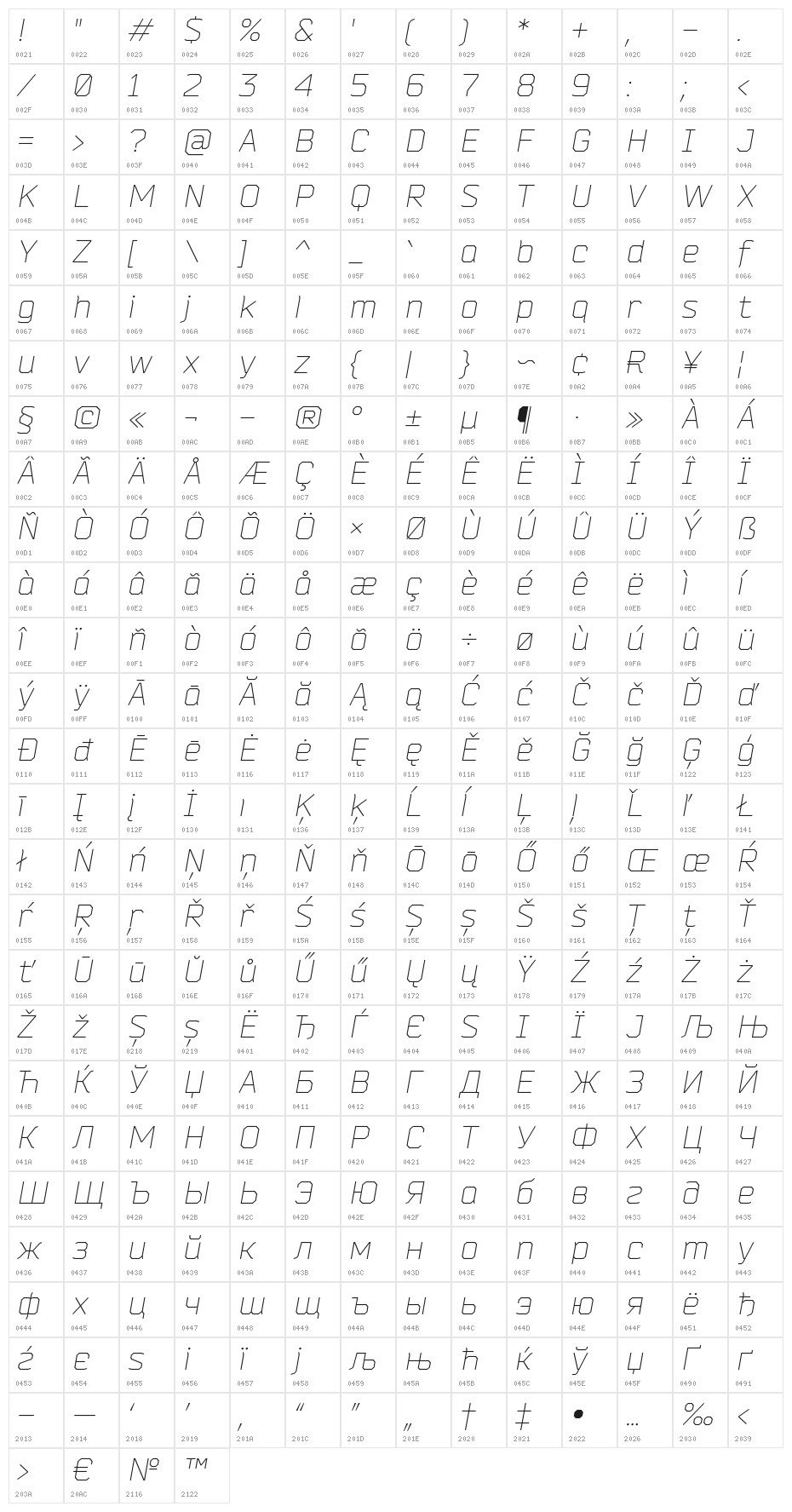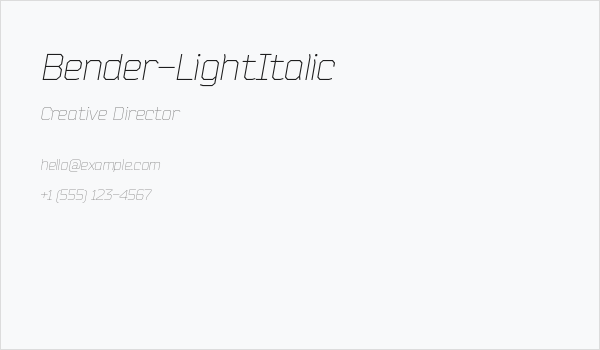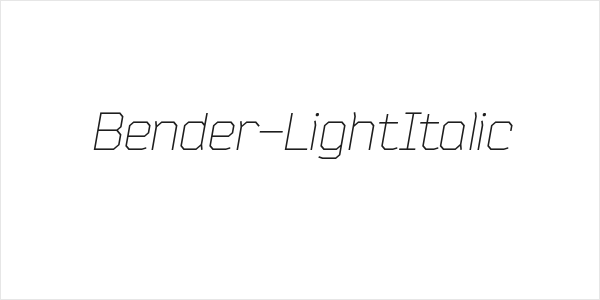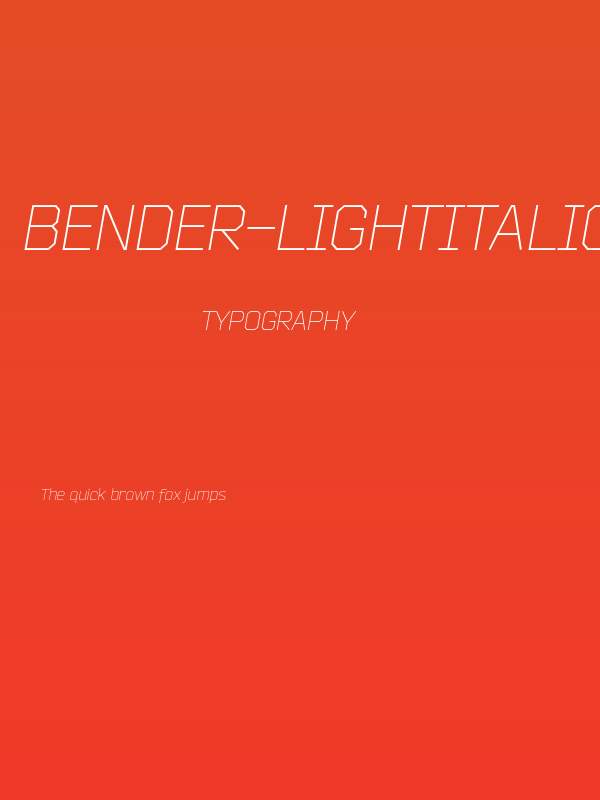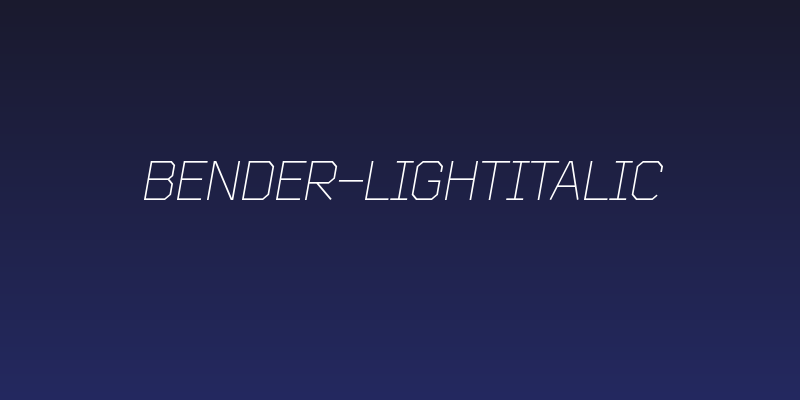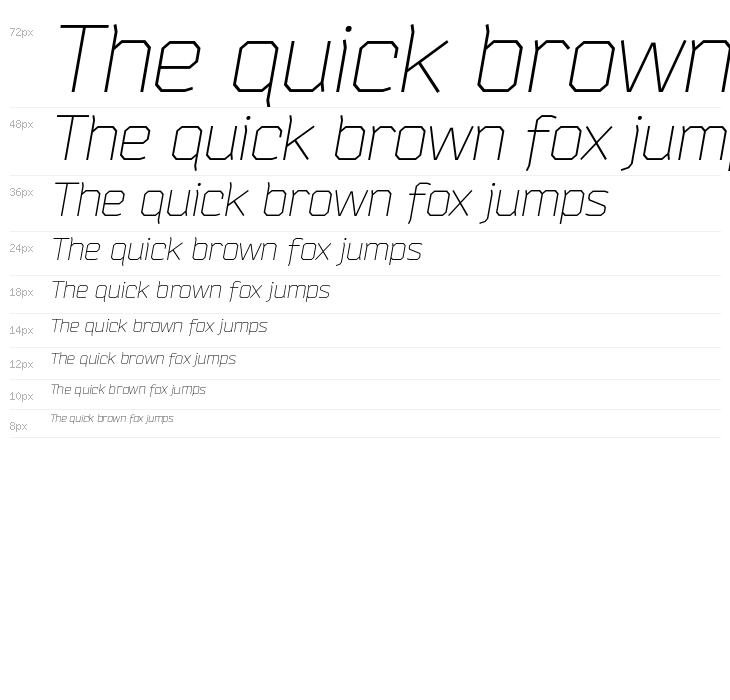
Bender-LightItalic Font
Bender-LightItalic Description
This font features a sleek, geometric design with a modern twist. The characters are constructed with clean, angular lines that give a futuristic and technical feel. The italic style adds a dynamic and forward-leaning appearance, enhancing its contemporary aesthetic. Each letter maintains a consistent stroke width, contributing to a uniform and balanced look. The numerals and special characters follow the same design principles, ensuring cohesion across all elements. This font is ideal for projects that require a modern and innovative touch, such as technology branding or digital interfaces.